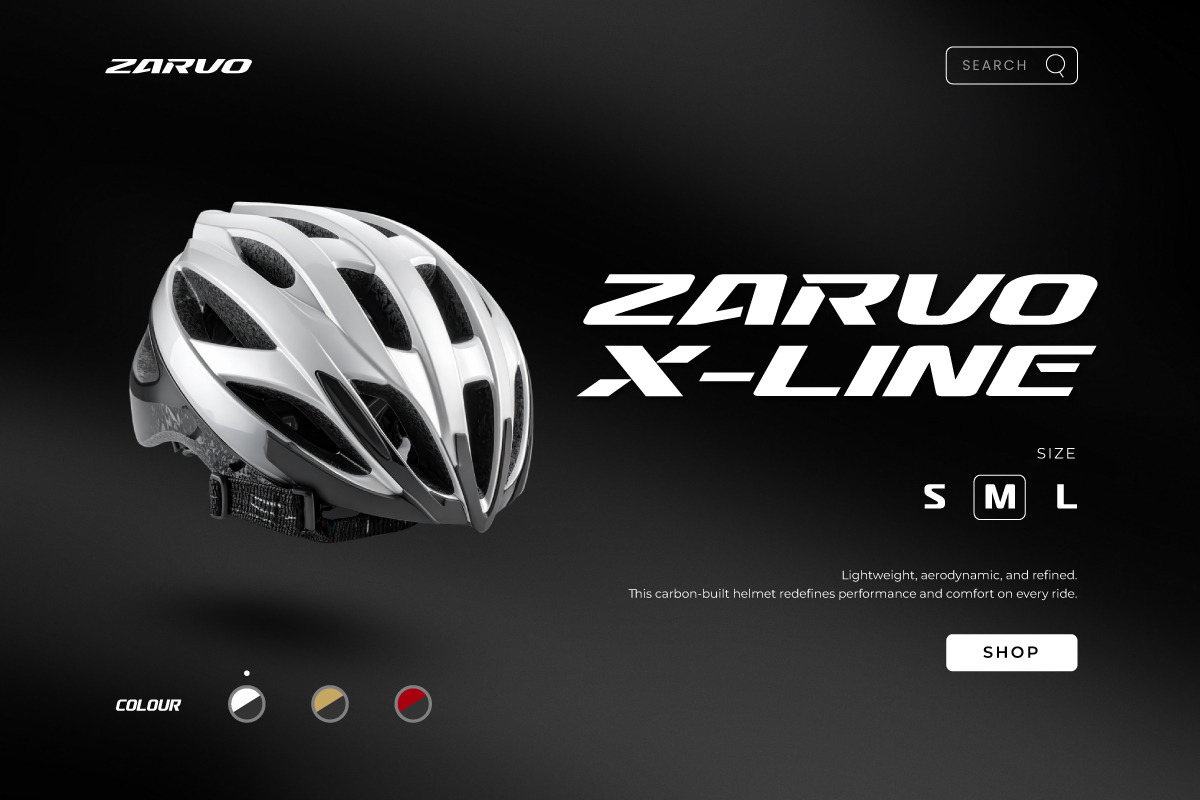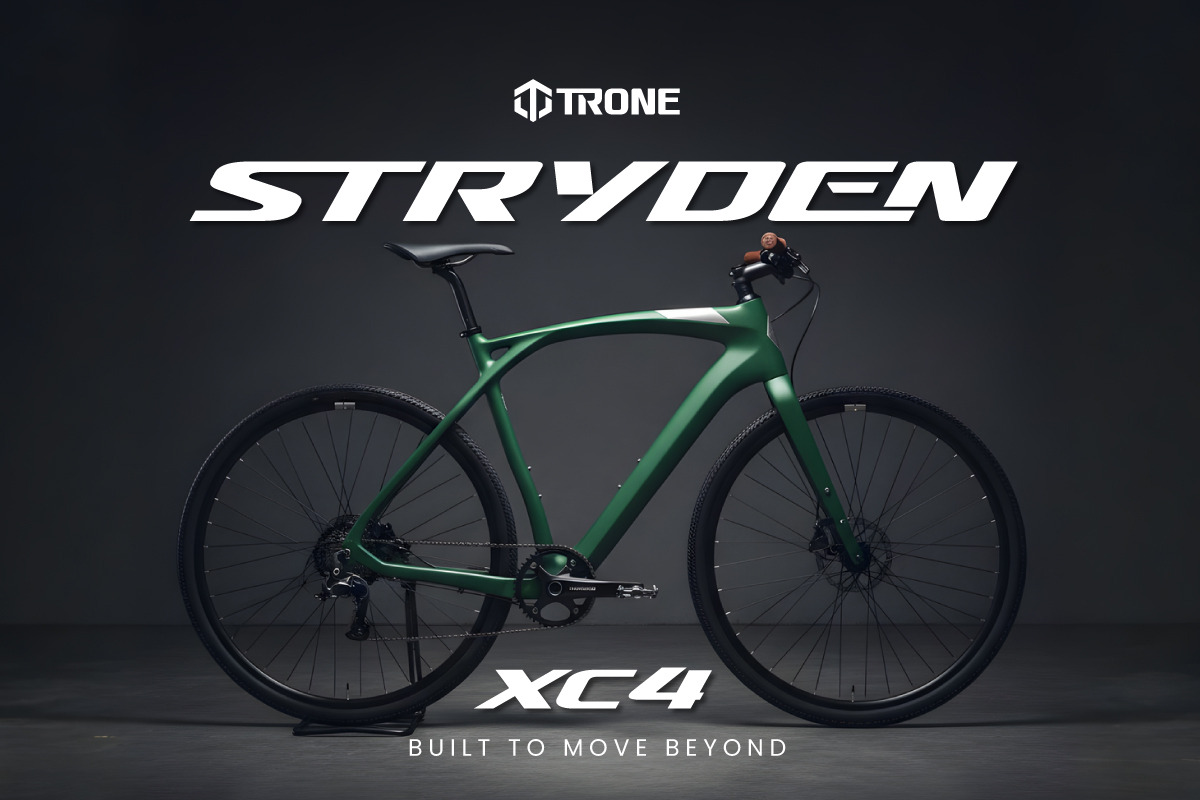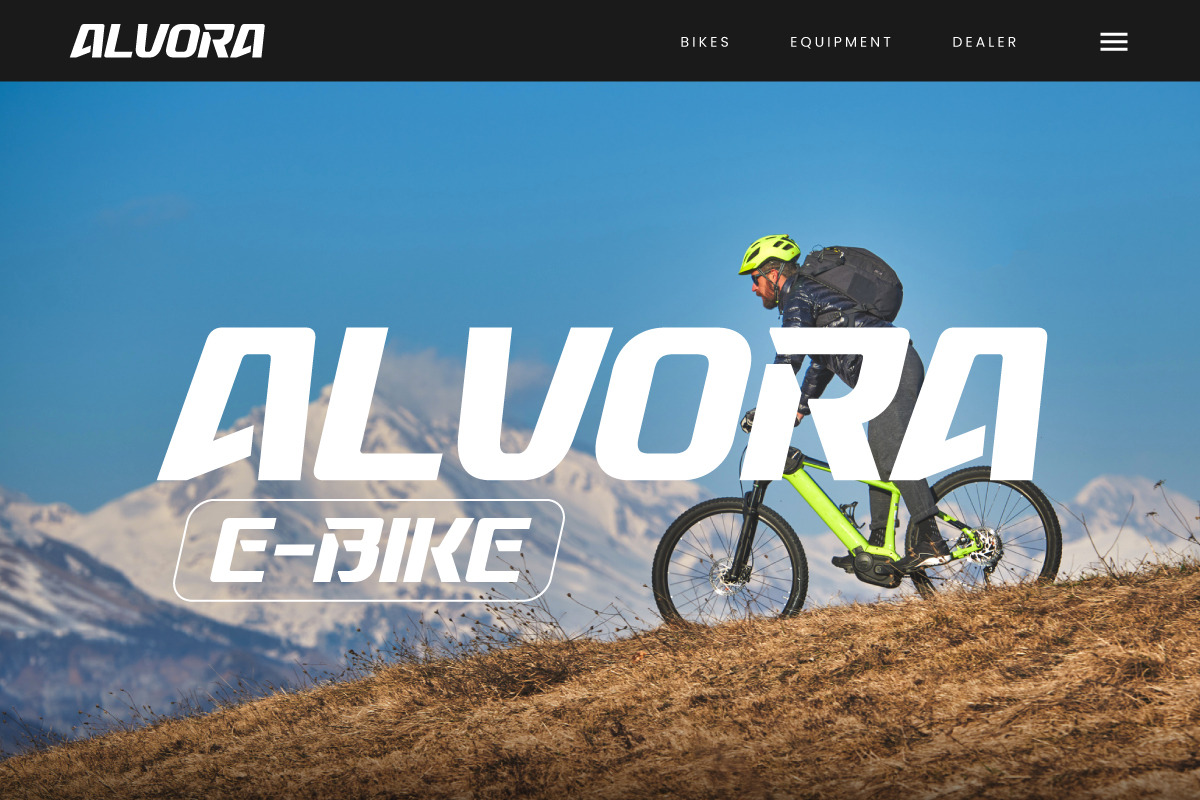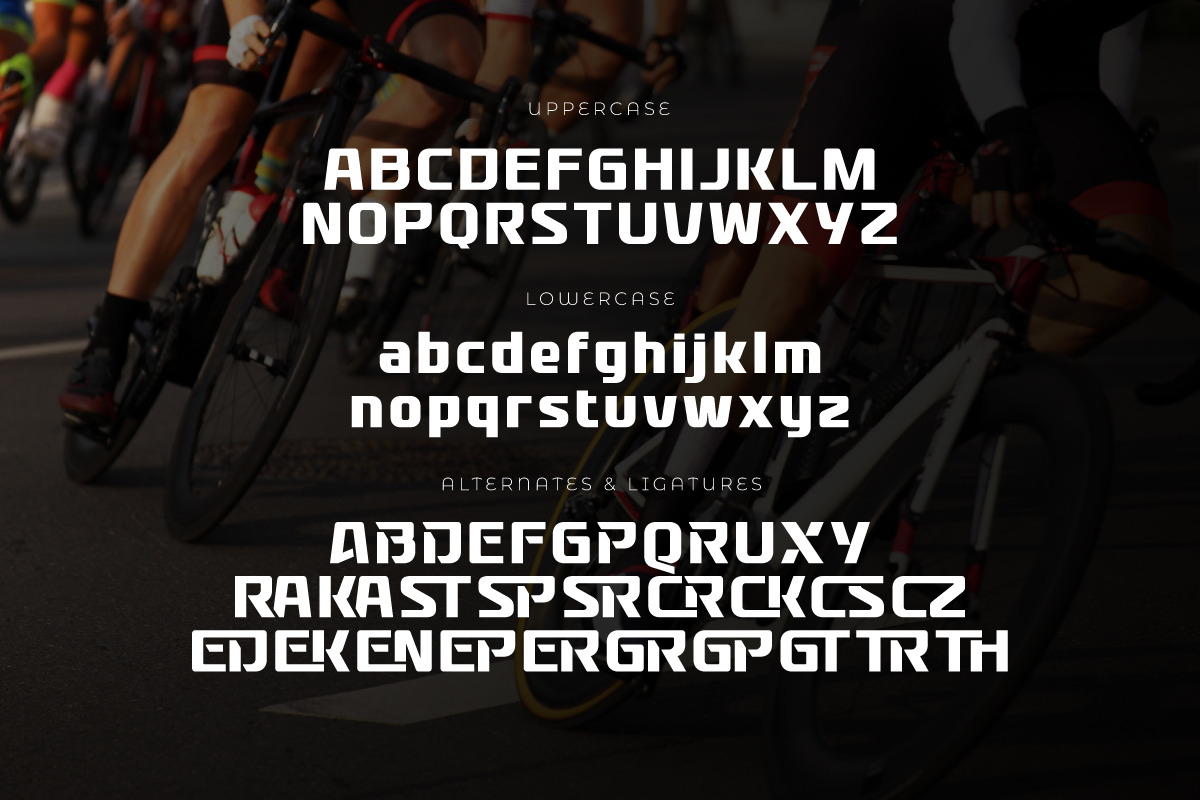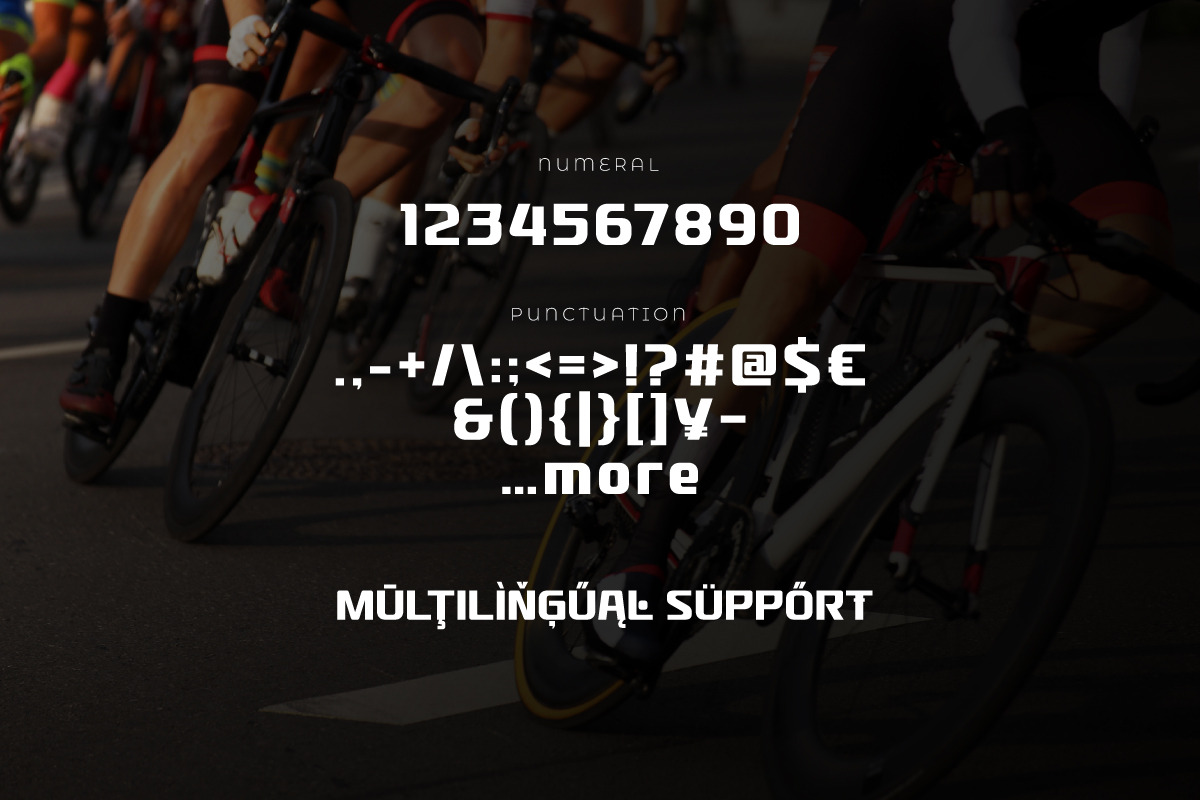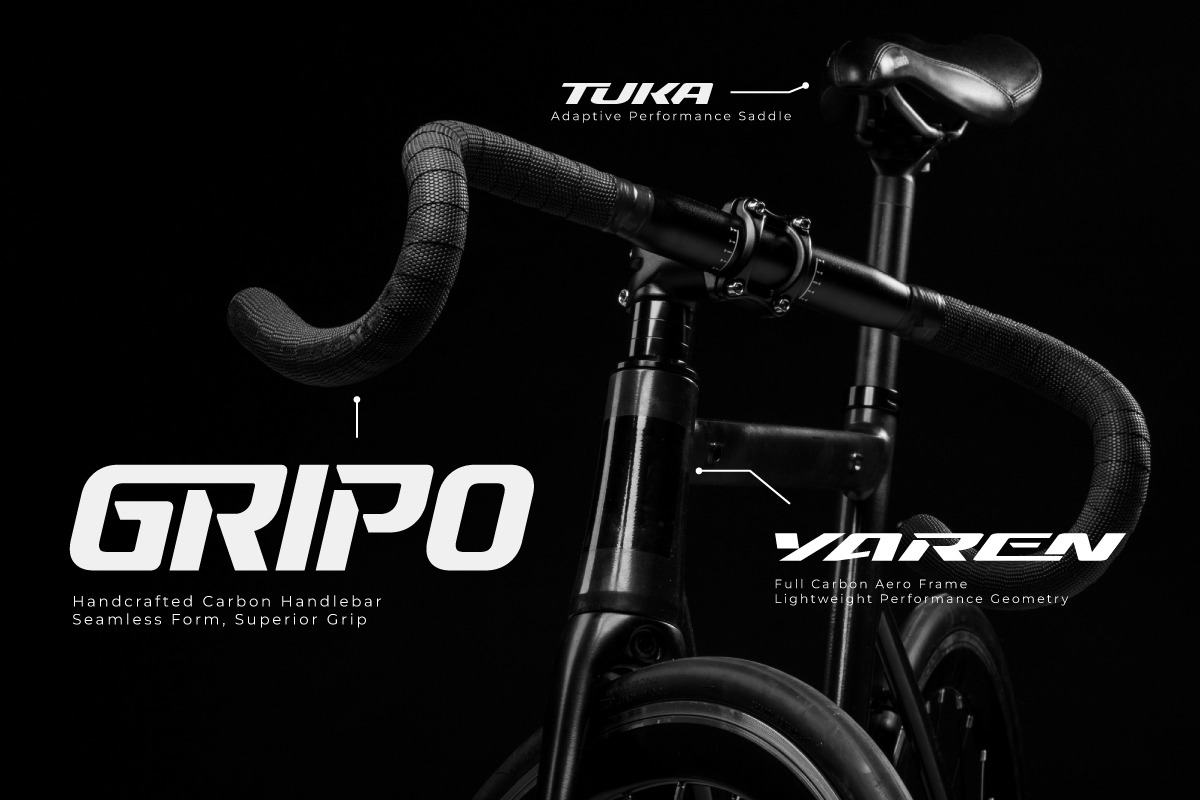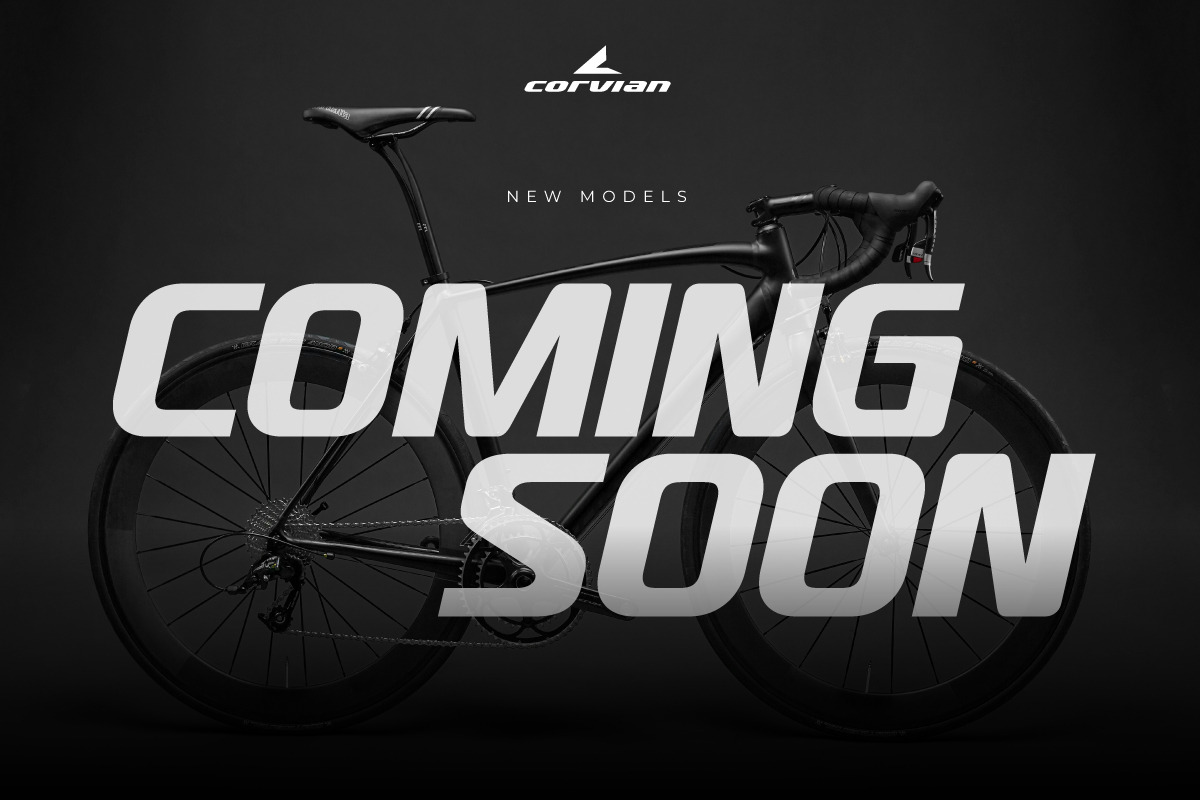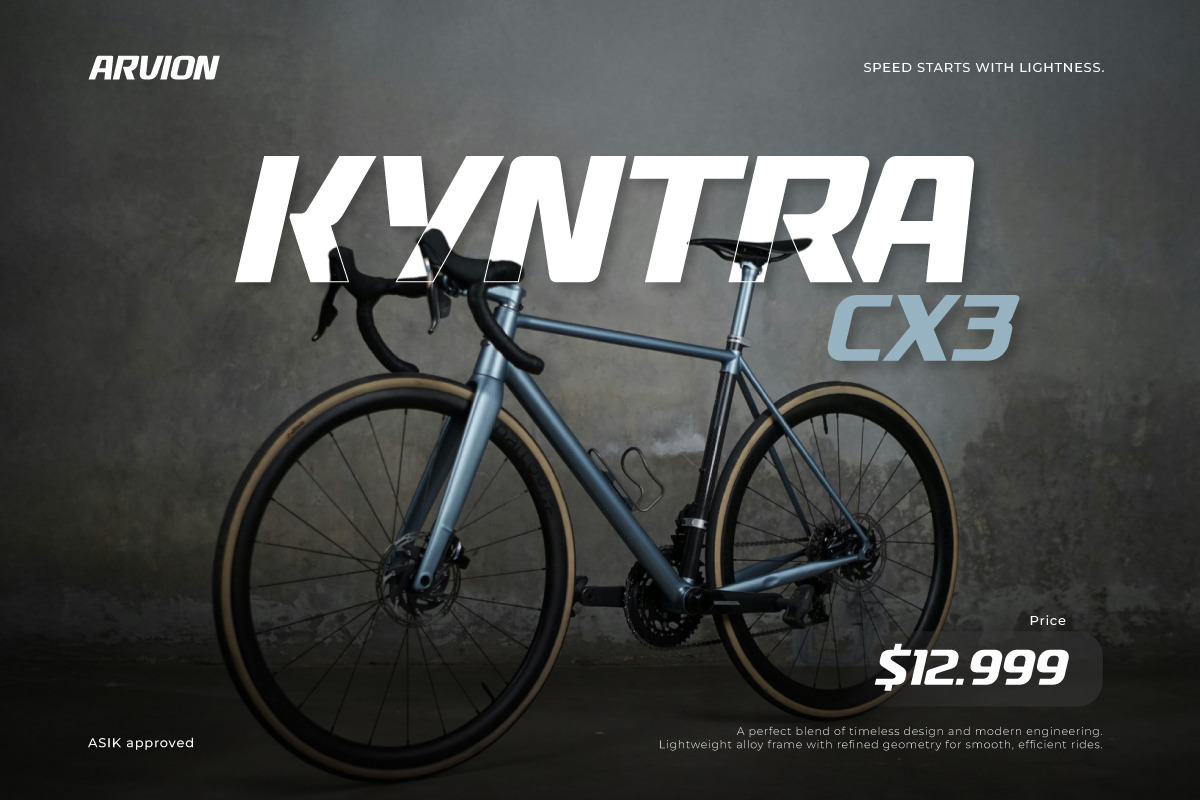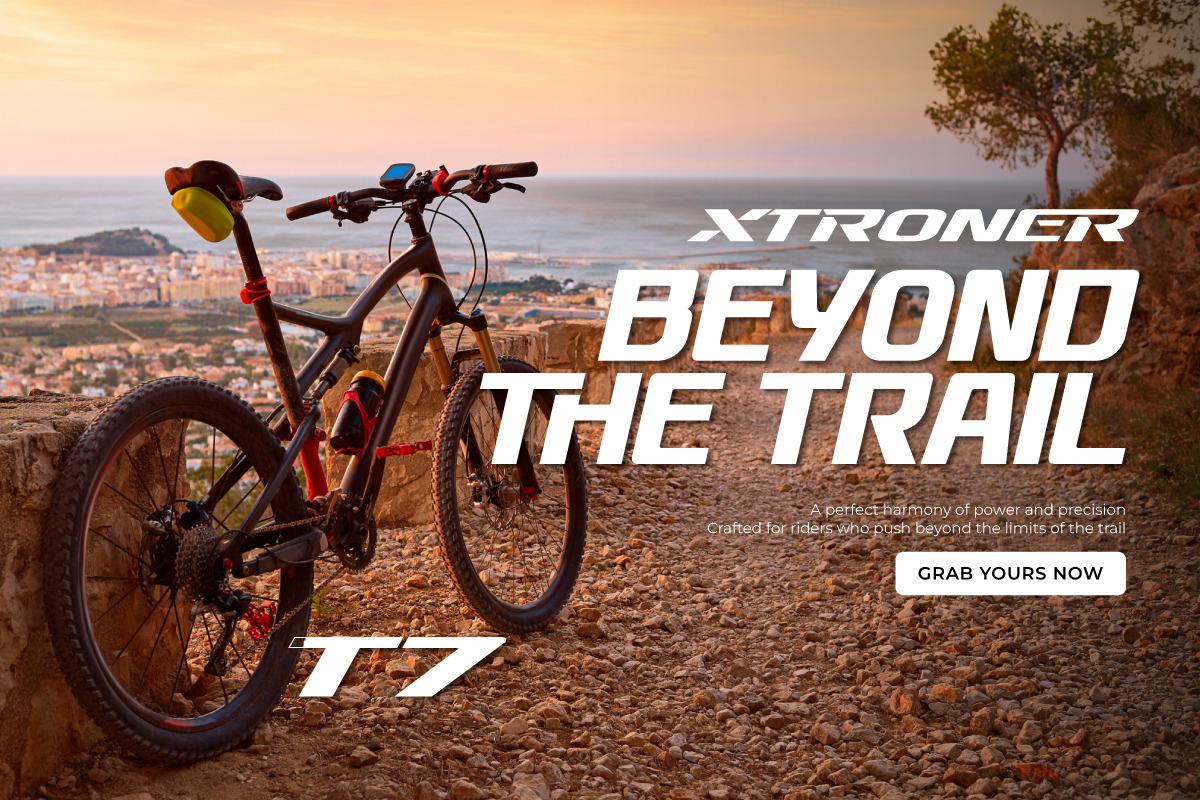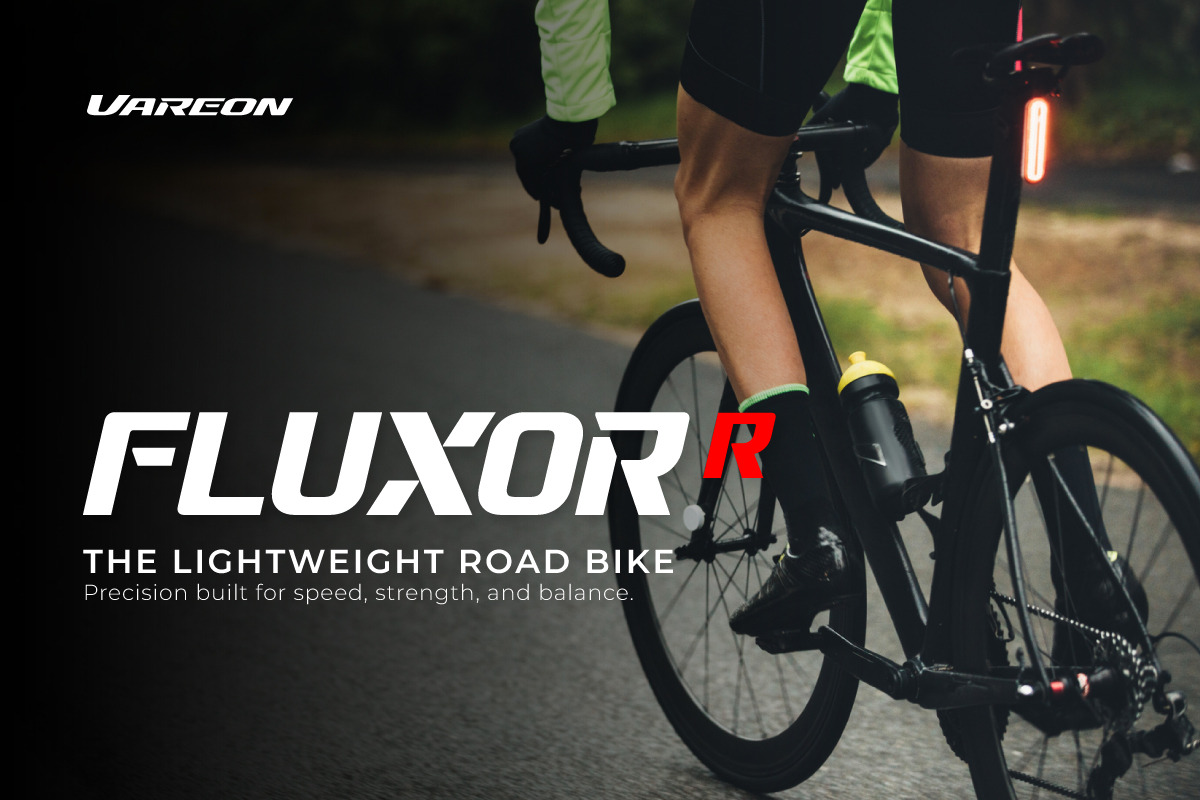
Pedal Track - Sport Bicycle
Pedal Track – Sport Bicycle unleashes the power of motion and speed, inspired by the dynamic world of cycling and athletic endurance. Each letter is crafted with sharp edges and bold cuts, creating a perfect balance between strength, precision, and modern style—ideal for sports branding and adventure design.
With Regular, Slant, and Extreme versions, Pedal Track gives full flexibility for designers seeking energetic, high-performance visuals. Its structure evokes the rhythm of pedaling—perfect for logos, race posters, bike apparel, or cinematic sports titles.
Modern, fast, and confident, Pedal Track brings an urban athletic spirit into every composition. Featuring alternates, ligatures, and multilingual support, it’s built to push your design forward—where speed meets creativity."
- Multilingual Support: Fully supports 85+ languages, including: Afrikaans, Albanian, Asu, Basque, Bemba, Bena, Breton, Catalan, Chiga, Cornish, Croatian, Czech, Danish, Dutch, Embu, English, Esperanto, Estonian, Filipino, Finnish, French, Friulian, Galician, Gusii, Hungarian, Indonesian, Irish, Italian, Kabuverdianu, Kalenjin, Kamba, Kikuyu, Kinyarwanda, Latvian, Lithuanian, Lower Sorbian, Luo, Luxembourgish, Luyia, Machame, Makhuwa-Meetto, Makonde, Malagasy, Maltese, Manx, Meru, Morisyen, North Ndebele, Norwegian Bokmål, Norwegian Nynorsk, Nyankole, Oromo, Polish, Portuguese, Quechua, Romanian, Romansh, Rombo, Rundi, Rwa, Samburu, Sango, Sangu, Scottish Gaelic, Sena, Serbian, Shambala, Shona, Slovak, Slovenian, Soga, Somali, Spanish, Swahili, Swedish, Swiss German, Taita, Teso, Turkish, Upper Sorbian, Uzbek (Latin), Volapük, Vunjo, Walser, Zulu.